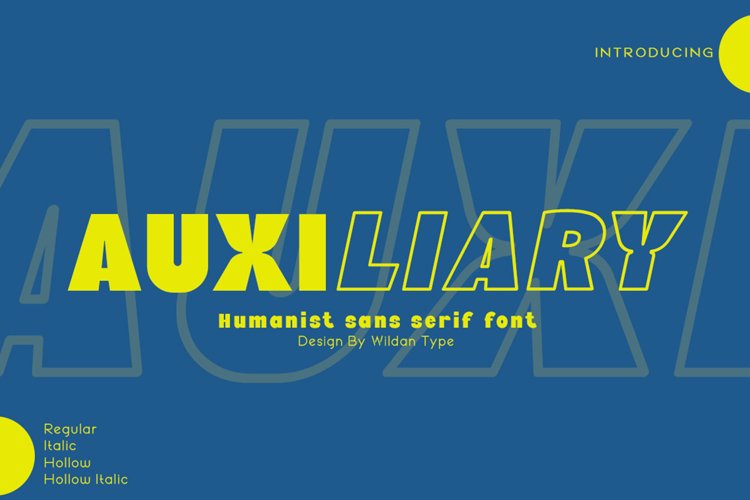
Auxiliary Font
About Auxiliary Font
Auxiliary is a humanist sans serif font. Make it more interesting and dynamic. Auxiliary is designed for content display and text. Maximizes thickness while maintaining balance in each shape. This is perfect for any type of creative project.
Auxiliary come with 4 styles. That is Regular, Italic, Hollow, and Hollow Italic. Makes every project you work on easier, and will certainly be awesome!